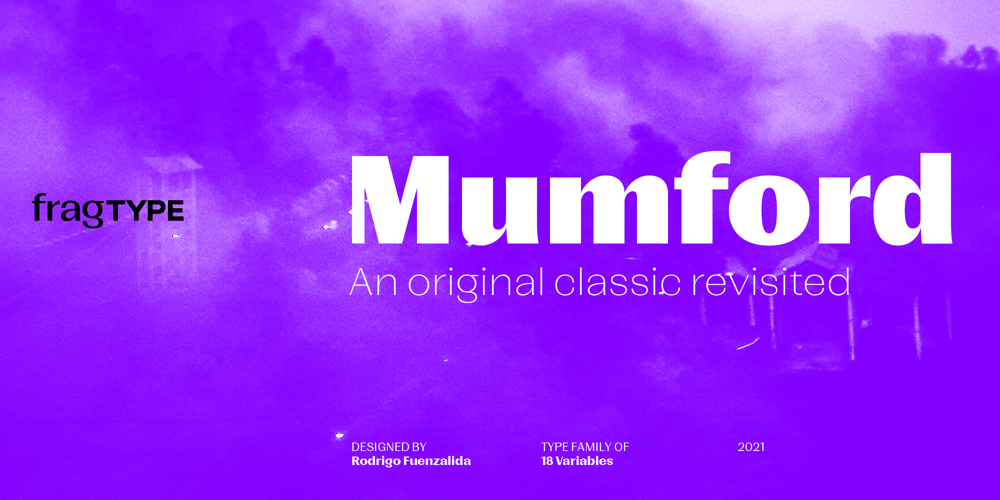
Mumford
Mumford font
Mumford Font Family was designed by Rodrigo Fuenzalida and published by fragTYPE. Mumford contains 18 styles and family package options. Mumford began as a revival of the early designs for sans serif fonts of the late 19th and early 20th centuries, but along the way it morphed into a reinterpretation of this style and it adaptation to more contemporary shapes.It’s strong contrast, signature of the design, works along it 9 weight variables each with their corresponding oblique. Each variable includes extended language support (+ Cyrillic), fractions, tabular figures, ligatures and opentype features.Mumford was design with strong graphic display design in mind, perfectly suited for poster, magazine headers, titles and editorial design.